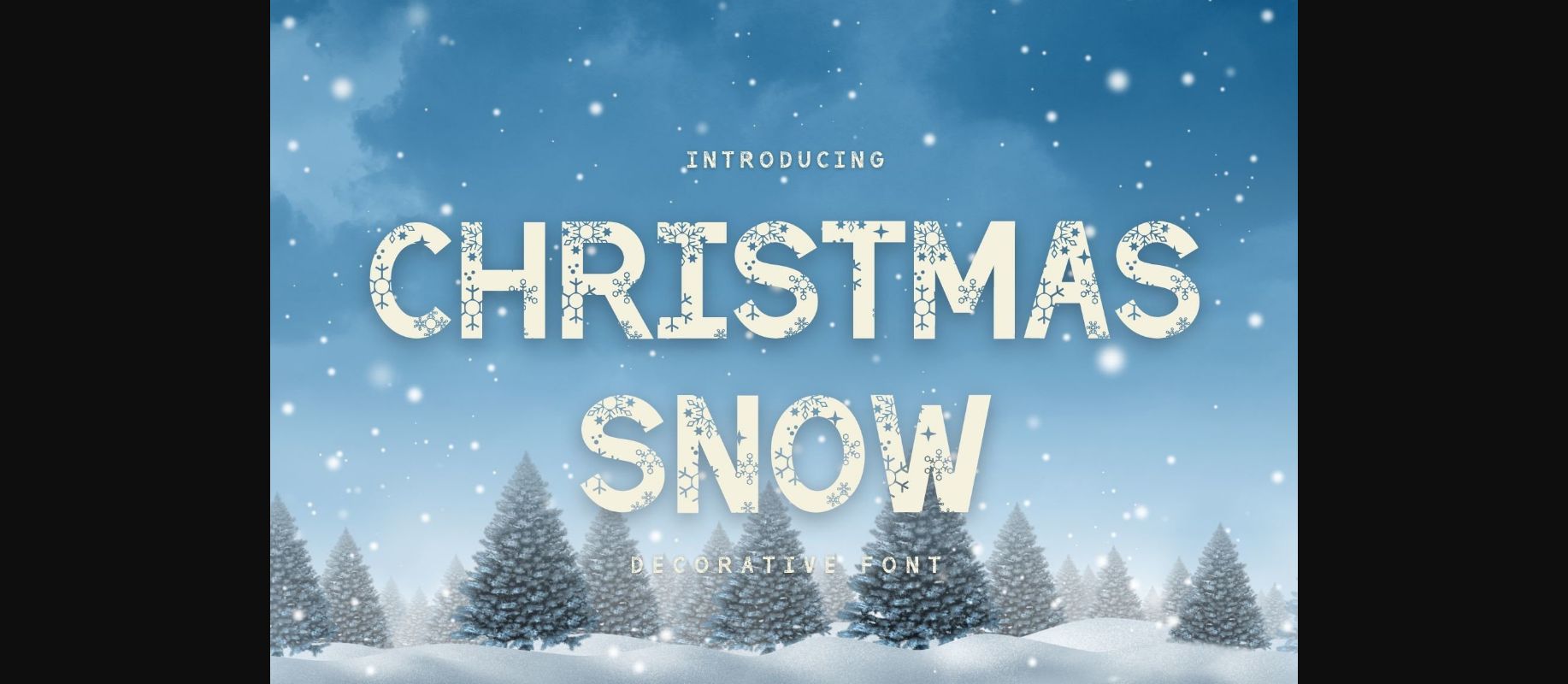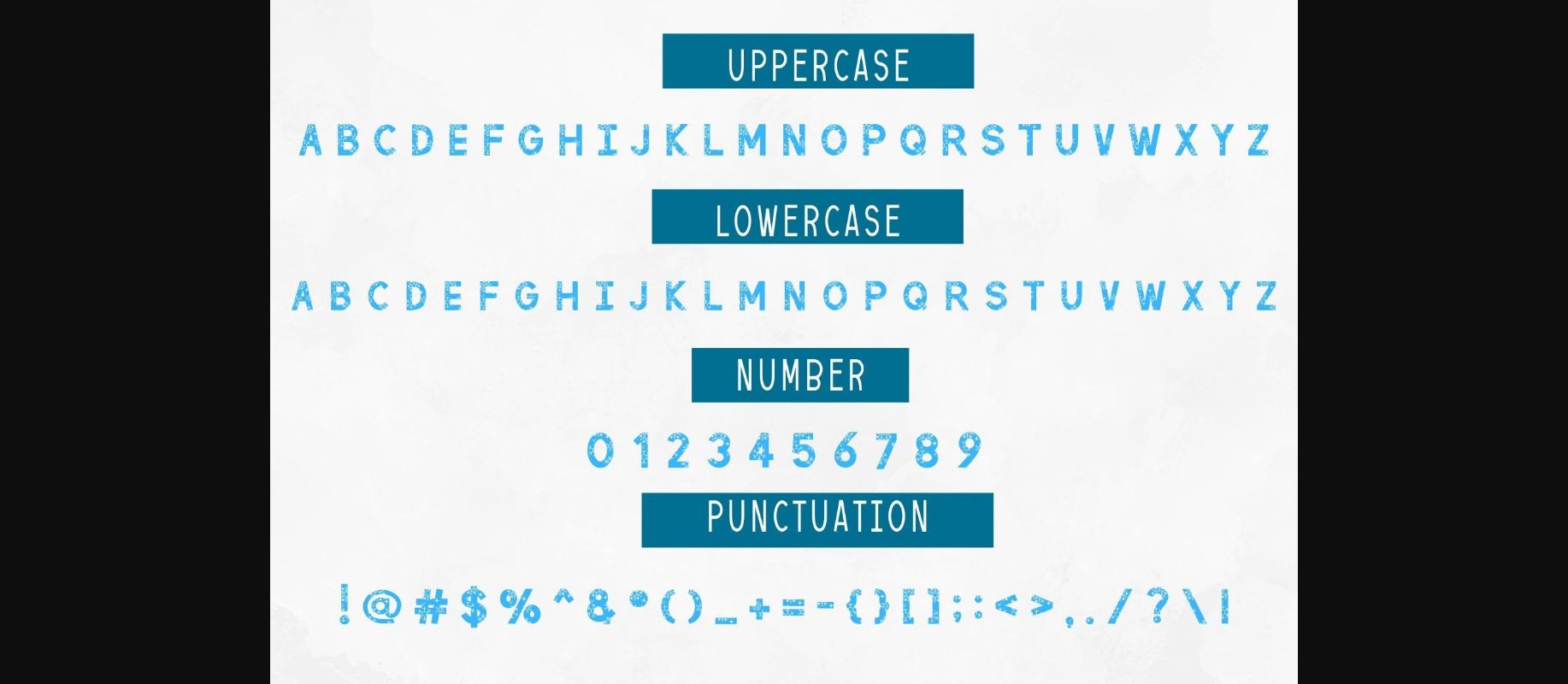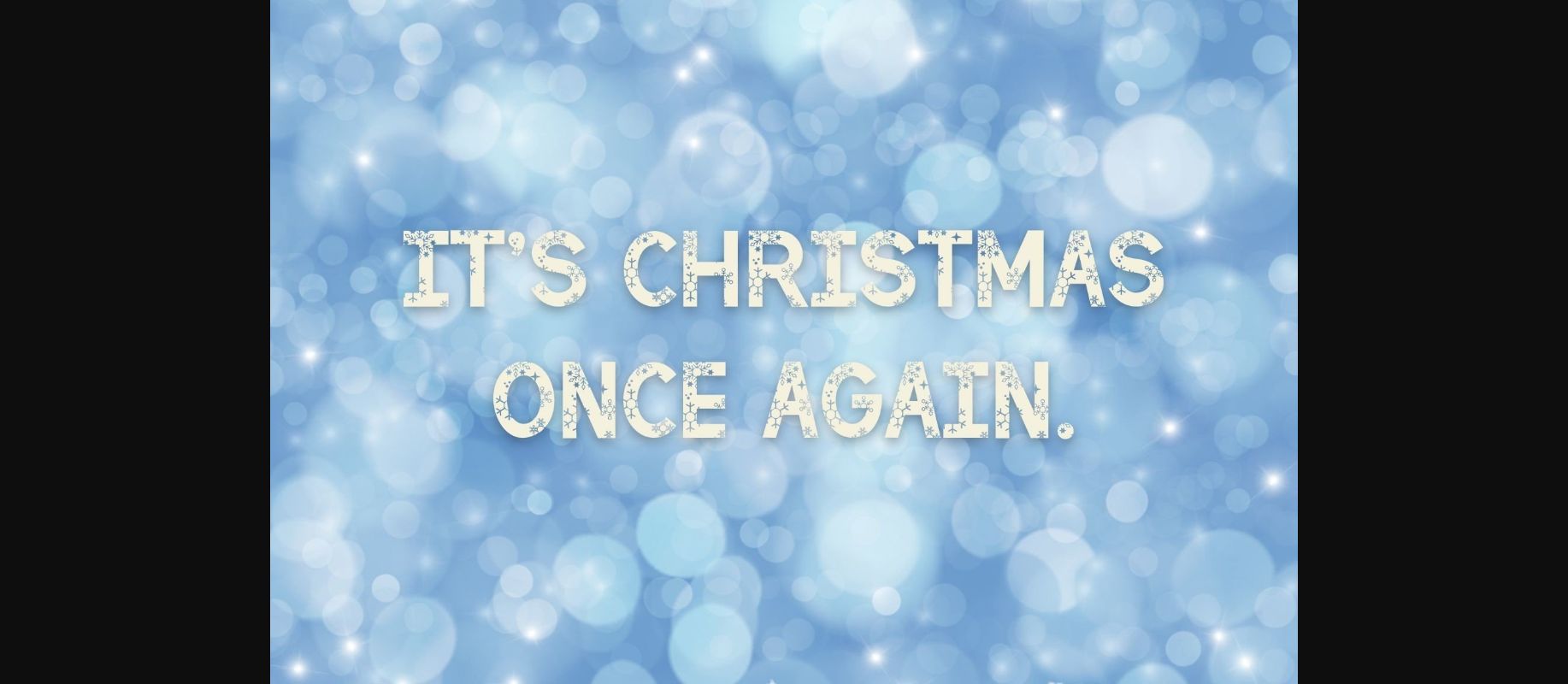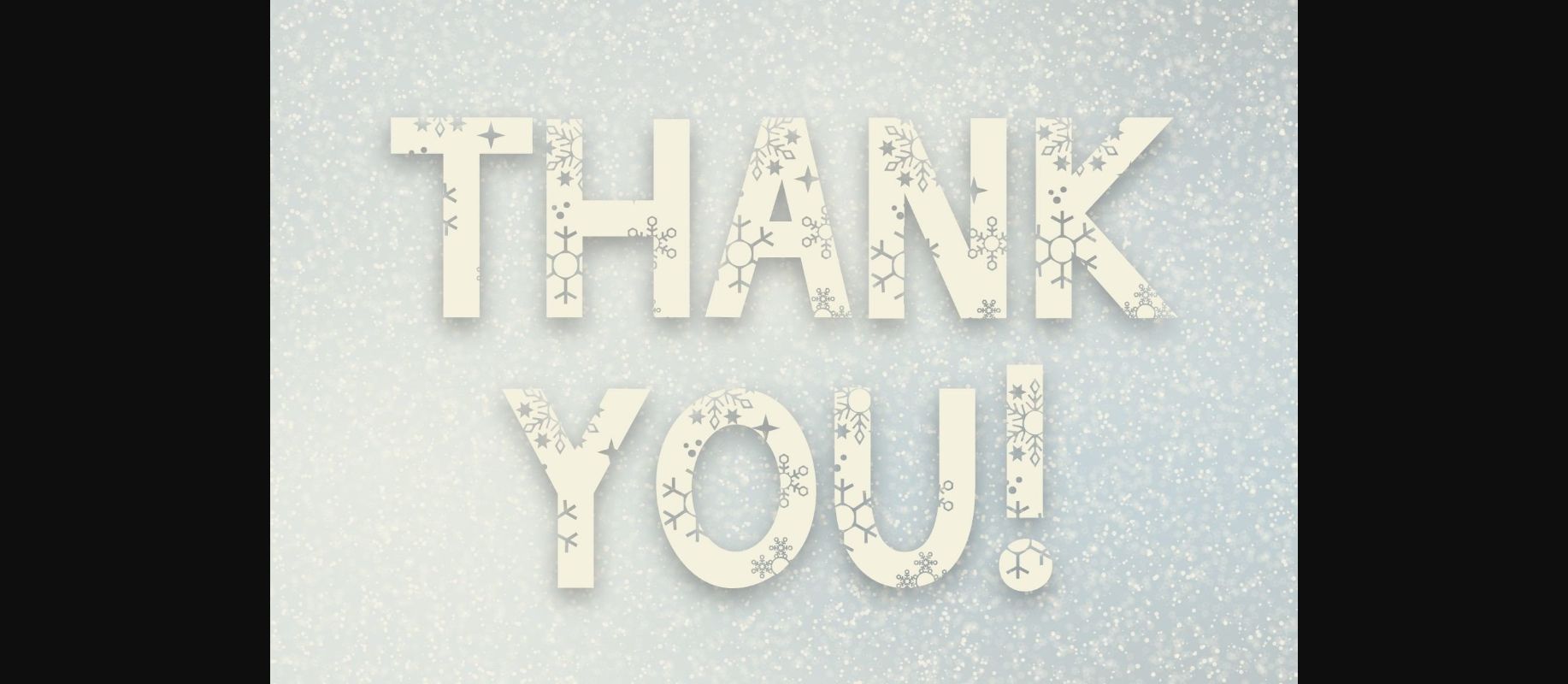
Christmas Snow Font
About Christmas Snow Font
Christmas Snow is a cute winter-themed decorative font. It embodies playfulness and authenticity and is the perfect choice for all your favorite projects. Add it to any of your designs, and enjoy the results!